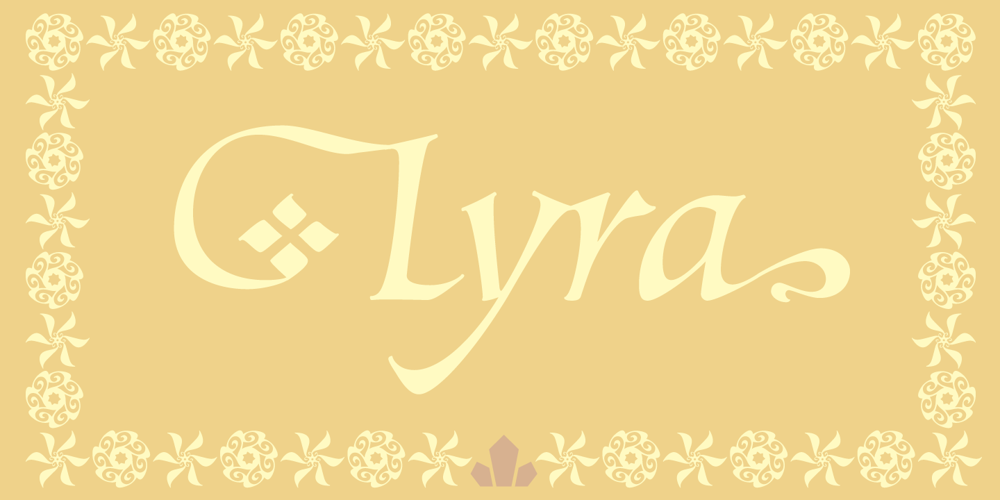
Lyra
Lyra font
Lyra Font Family was designed by Philip Bouwsma and published by Canada Type. Lyra contains 4 styles and family package options. Lyra is an Italian Renaissance script that might have developed if metal type had not broken the evolution of broad pen calligraphy. It lies in the area between the humanist bookhand and the chancery cursive, combining the fullness and articulation of the Roman letters with a moderate italic slant and condensation. A steep pen-angle allows use of a broader pen relative to the x-height, giving the letters more contrast with light verticals and heavy curves. Lyra embodies the Renaissance spirit of refining technical advances of the late middle ages with reintroduction of ancient classical principles. Based on the moving penstroke with constantly changing pen-angle, it brings the vitality of handwriting to the ordered legibility of type. Lyra is a formal italic, too slow for copying books. By eliminating the element of speed, digital technology opens up a new level of calligraphy, bringing it into the sphere of typography as would naturally have happened if metalworkers had not controlled the process. If classical Western traditions are respected, digital calligraphy has the potential to recapture the work of the past and restart its stalled evolution. There is of course no substitute for the charm of actual writing, with each letter made for its space; but the tradeoff is for the formal harmony of classical calligraphy as every curve resonates in tune with every other. This three-weight font family marks Philip Bouwsma’s much-requested return from a three year hiatus. It also reminds us of his solid vision in regards to how calligraphy, typography and technology can interact to produce digital beauty and vesatility. Each of the three Lyra fonts contains almost three character sets in a single file. Aside from the usual wealth of alternates normally built into Bouwsma’s work, Lyra offers two unique features for the user who appreciates the availability of handy solutions to subtle design space issues: At least three (and as many as six) length variations on ascending and descending forms, and 65 snap-on swashes which can be attached to either end of the majuscules or minuscules. The series also offers 24 dividers and ornaments built into each weight, and a stand-alone font containing 90 stars/snowflakes/flowers, symmetric contstructs for building frames or separators, masking, watermarking, or just good old psychedelia.